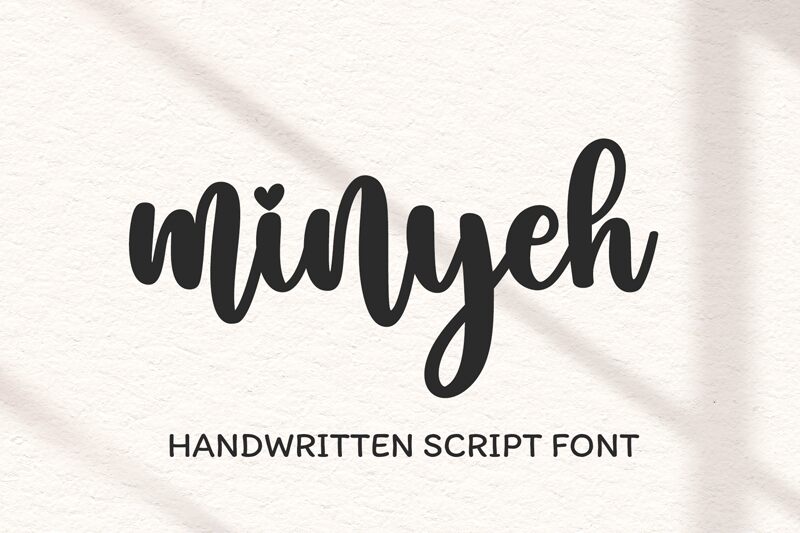
Minyeh, the charming and playful semi-bold font designed by Bearytype, is the perfect choice for any project that requires a touch of whimsy and elegance. With its cute calligraphy style, Minyeh adds a delightful flair to invitations, greeting cards, logos, and branding materials. Its semi-bold weight presents a confident yet approachable vibe that's ideal for children's books or product packaging. Minyeh is versatile enough to lend itself to both digital and print media. Infuse your designs with Minyeh's joyful spirit and watch them come to life!